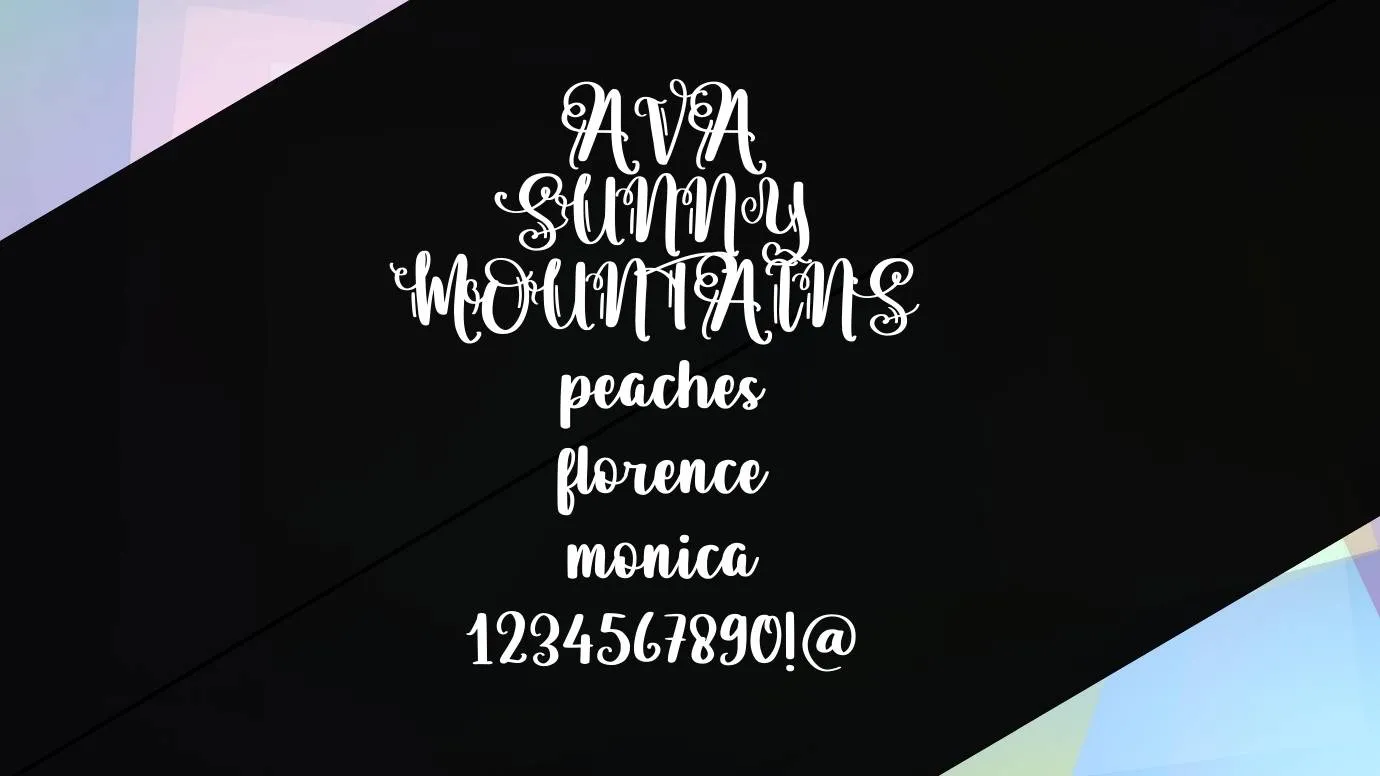
Pictagram Font was designed by Ji Lee and released in 2008. It is a humanist calligraphy typeface. The design of a Pictogram Font is influenced by the shapes of ordinary objects. The typeface includes a variety of pictograms, which are meant to be used as navigation elements or as placeholders for text.
Pictogram Font has been used in a variety of projects, including the redesign of The New York Times website and the corporate identity of TEDx.
Ji Lee is a Korean-American designer who has worked on many notable projects, including the Google doodle series and the Facebook-like button. He is currently a creative director at Google. You can utilize it for both digital and print purposes.
This humanist calligraphy typeface is one of the most unique fonts available and it has been used by some of the world’s top brands. A similar font of this typeface is sofia font If you are looking for something different, then Pictogram Font is definitely worth considering.
Pictagram Font was designed by Ji Lee and released in 2008. It is a humanist calligraphy typeface.
This textured style incorporates several elements, such as capital and lowercase letters, numbers, punctuation, characters, special symbols, glyphs, and language support.
What is Pictogram Font?
This typeface is a humanist calligraphy typeface designed by Ji Lee. It is influenced by the shapes of ordinary objects and includes a variety of pictograms.
Who designed Pictogram Font?
Ji Lee is a Korean-American designer who has worked on many notable projects, including the Google doodle series and the Facebook-like button. He is currently a creative director at Google.